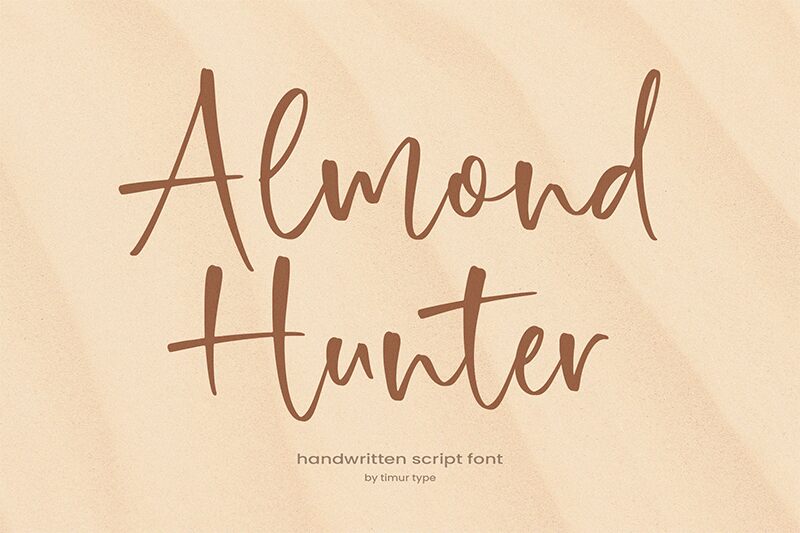
Almond Hunter
Almond Hunter, crafted by Timur Type, is a handwritten font that exudes charm and personality. Its fluid strokes and varied line thickness evoke the spontaneity of ink on paper, capturing the essence of personal touch in each character. The style suggests elegance with a hint of playfulness, making it ideal for designs that require a human touch without sacrificing sophistication.
Perfect for invitations, branding, or editorial work where a signature feel is desired, Almond Hunter brings an artisanal quality to any project. It bridges the gap between traditional handwriting and contemporary flair, ensuring your message stands out with authenticity and flair.